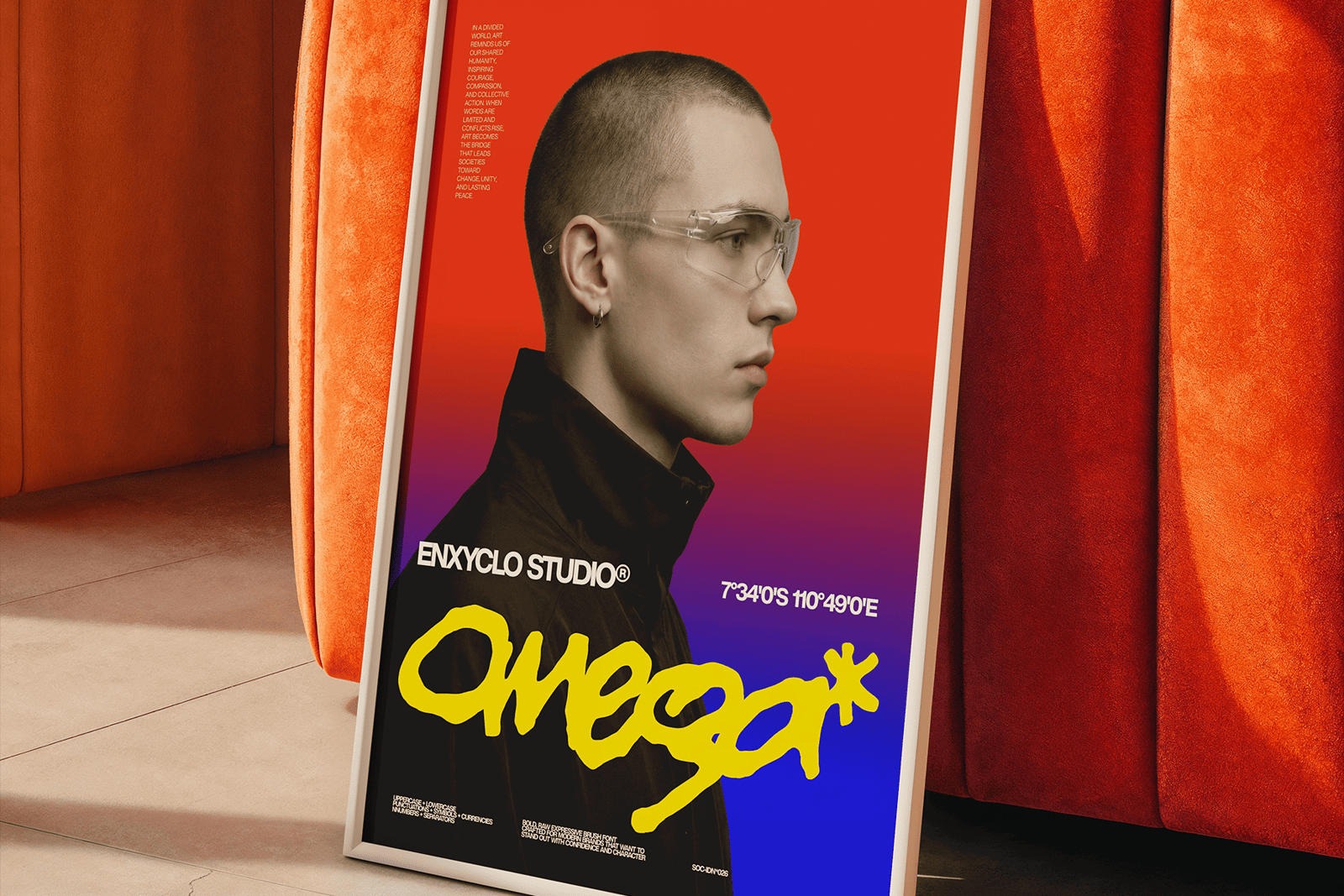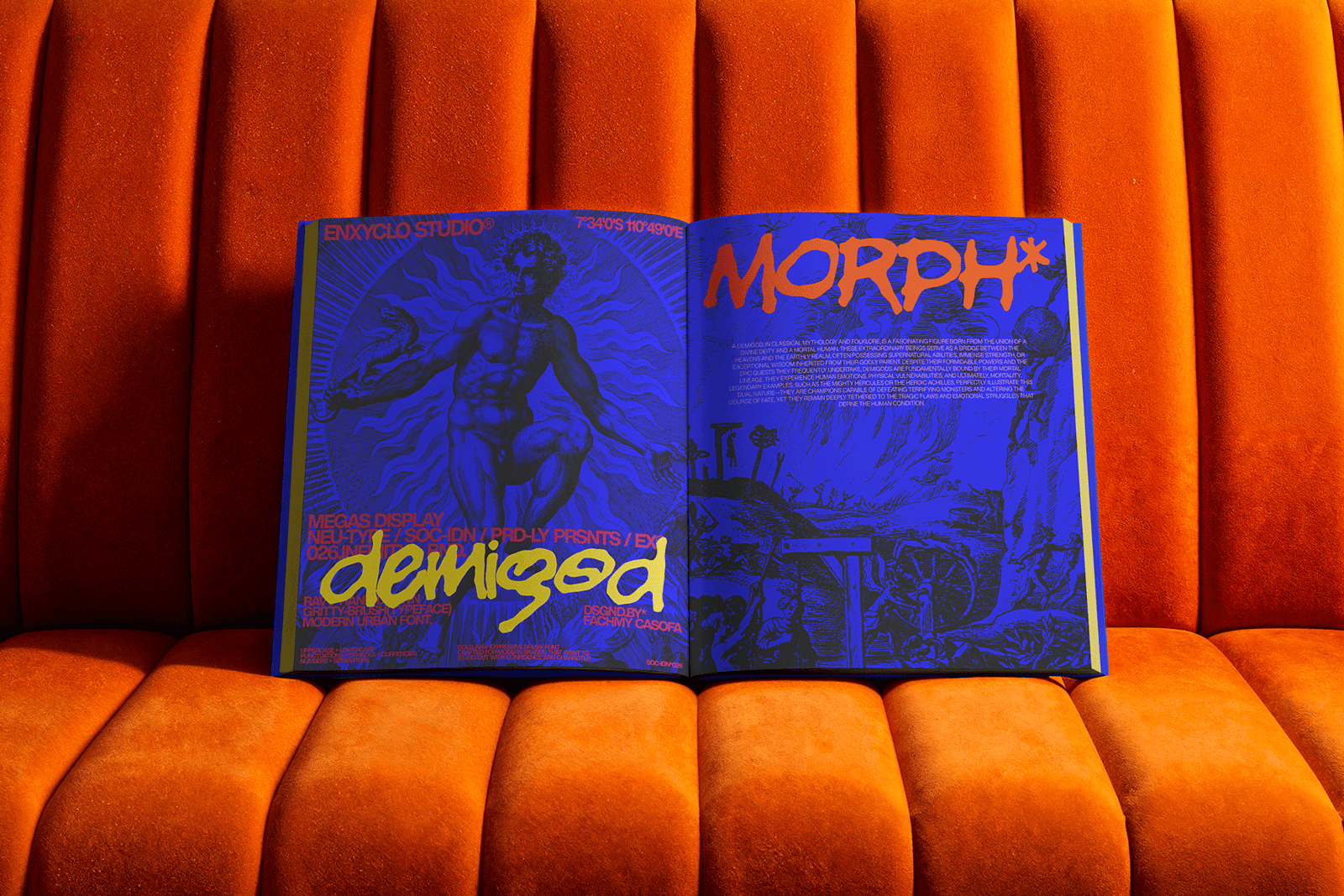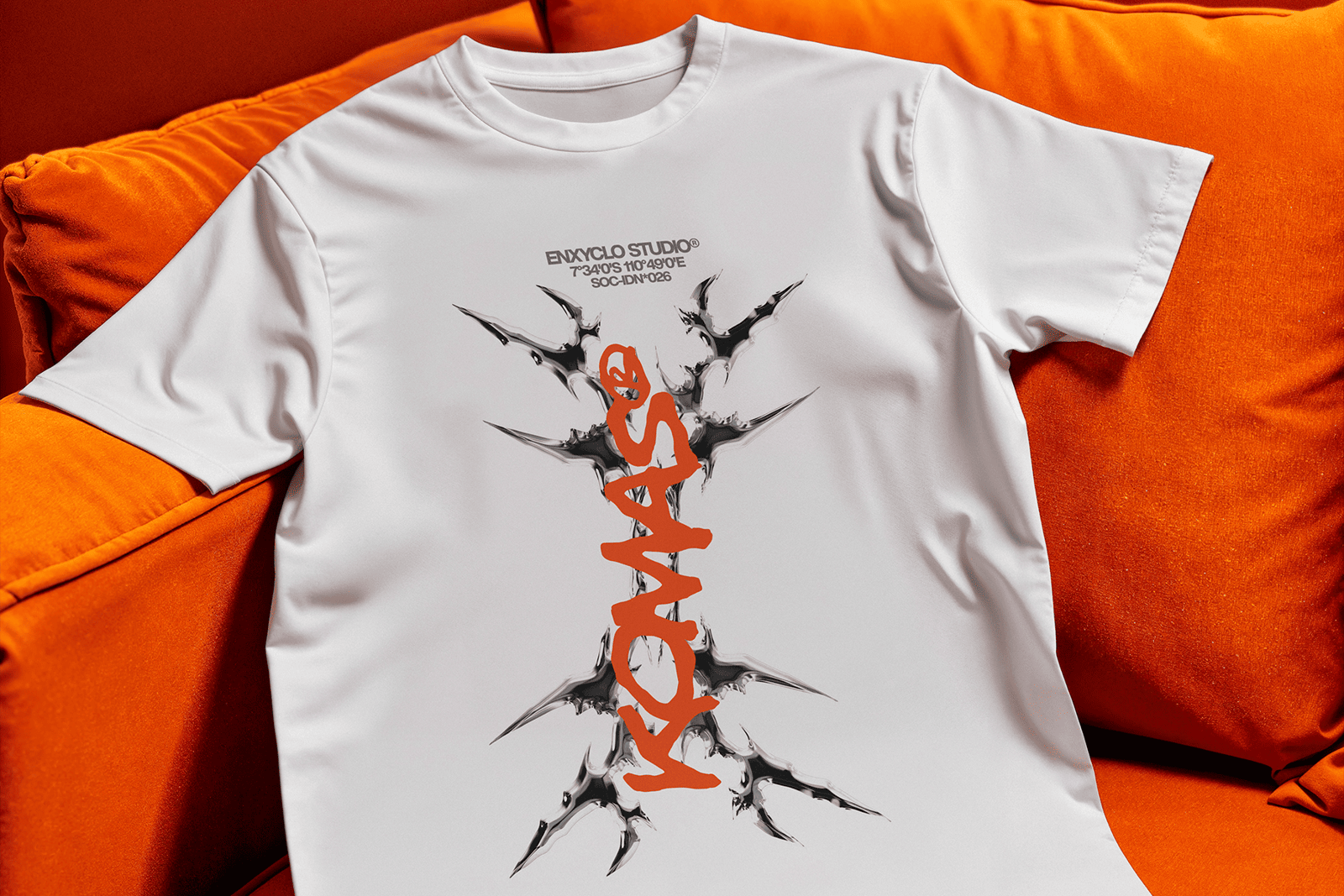
MEGAS — Imperfect Raw Urban Branding Font
Megas is an imperfect handdrawn branding font that celebrates the beauty of raw expression and authentic design. Built with gritty strokes and natural handdrawn imperfections, this typeface captures the energy of urban creativity and the bold character of industrial-inspired visuals. Every letter feels alive—raw, expressive, and intentionally imperfect—giving your design a powerful handcrafted personality.
Inspired by street lettering, creative studios, and modern urban aesthetics, Megas blends rough textures with a confident contemporary structure. The result is a font that feels organic yet strong, capable of delivering striking headline and poster typography while maintaining a unique visual identity for modern branding projects. The gritty handdrawn style creates an expressive rhythm across each letterform, making Megas perfect for designs that need attitude and authenticity. Whether placed on posters, bold headlines, or creative branding visuals, the font instantly adds a raw artistic voice that feels modern, urban, and full of character.
If your project demands typography that feels human, expressive, and visually bold, Megas delivers a distinctive handcrafted look that stands out in today’s design landscape. From branding concepts to striking visual campaigns, this font helps transform simple text into an unforgettable visual statement.
FEATURE
- Uppercase letters
- Lowercase letters
- Punctuation marks
- Symbol set
- Currency symbols
PERFECT FOR
- Creative logo & logotype design
- Branding & brand identity
- Modern agency visuals
- Contemporary packaging
- Poster & headline design
- Social media graphics
- Creative campaigns & visual storytelling